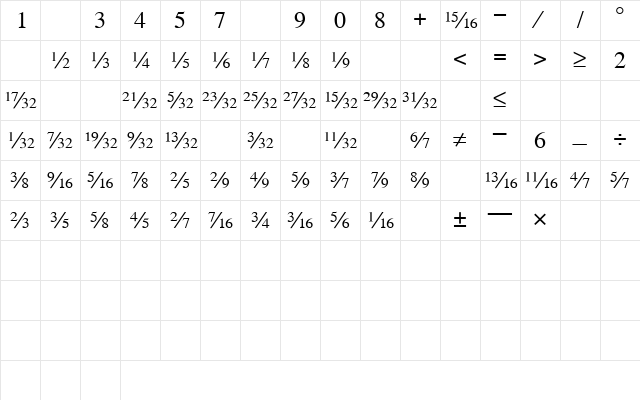
SeriFractionsDiagonal carries the refined structure of traditional serif typography, with bracketed terminals and considered proportions that communicate credibility and craft.